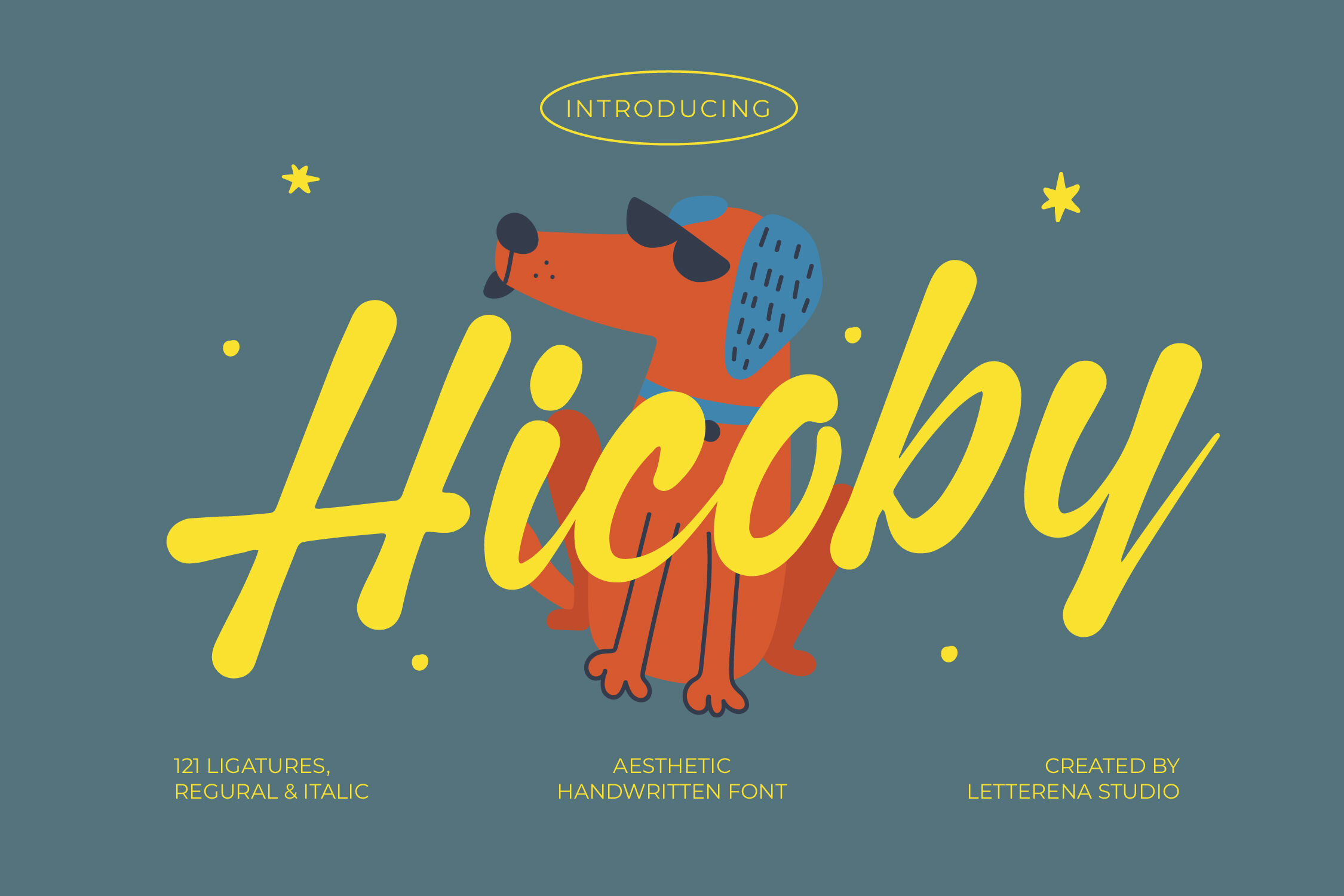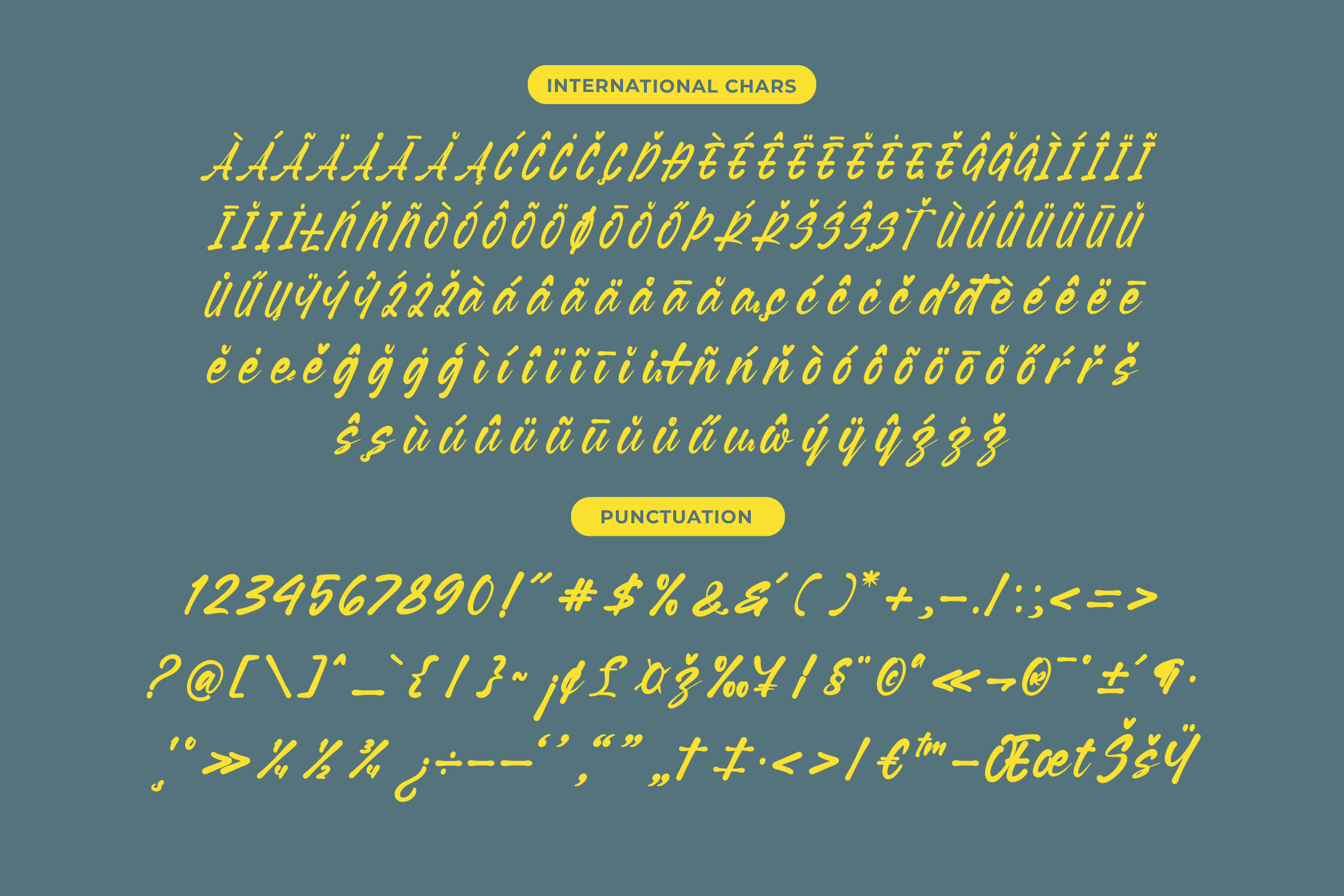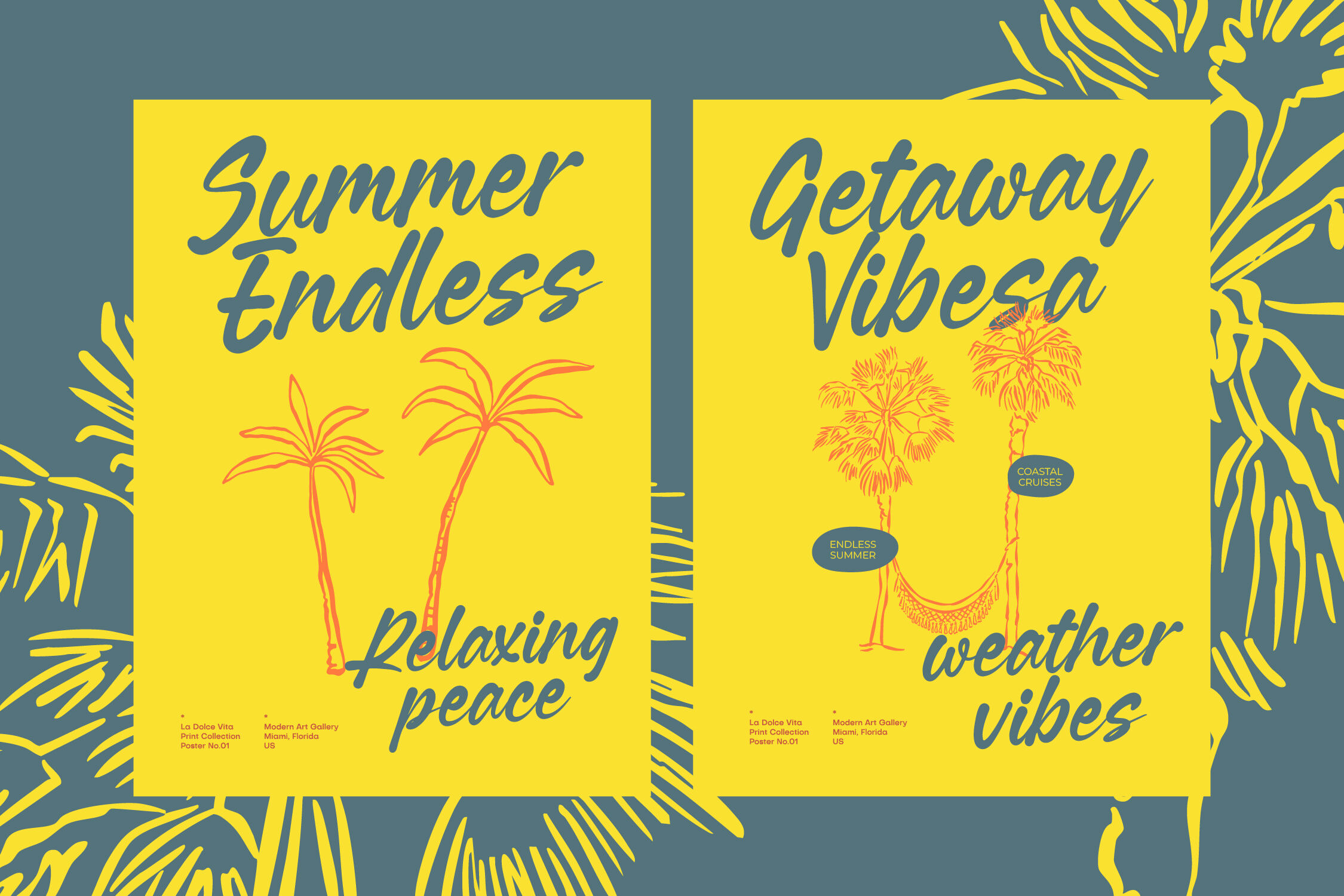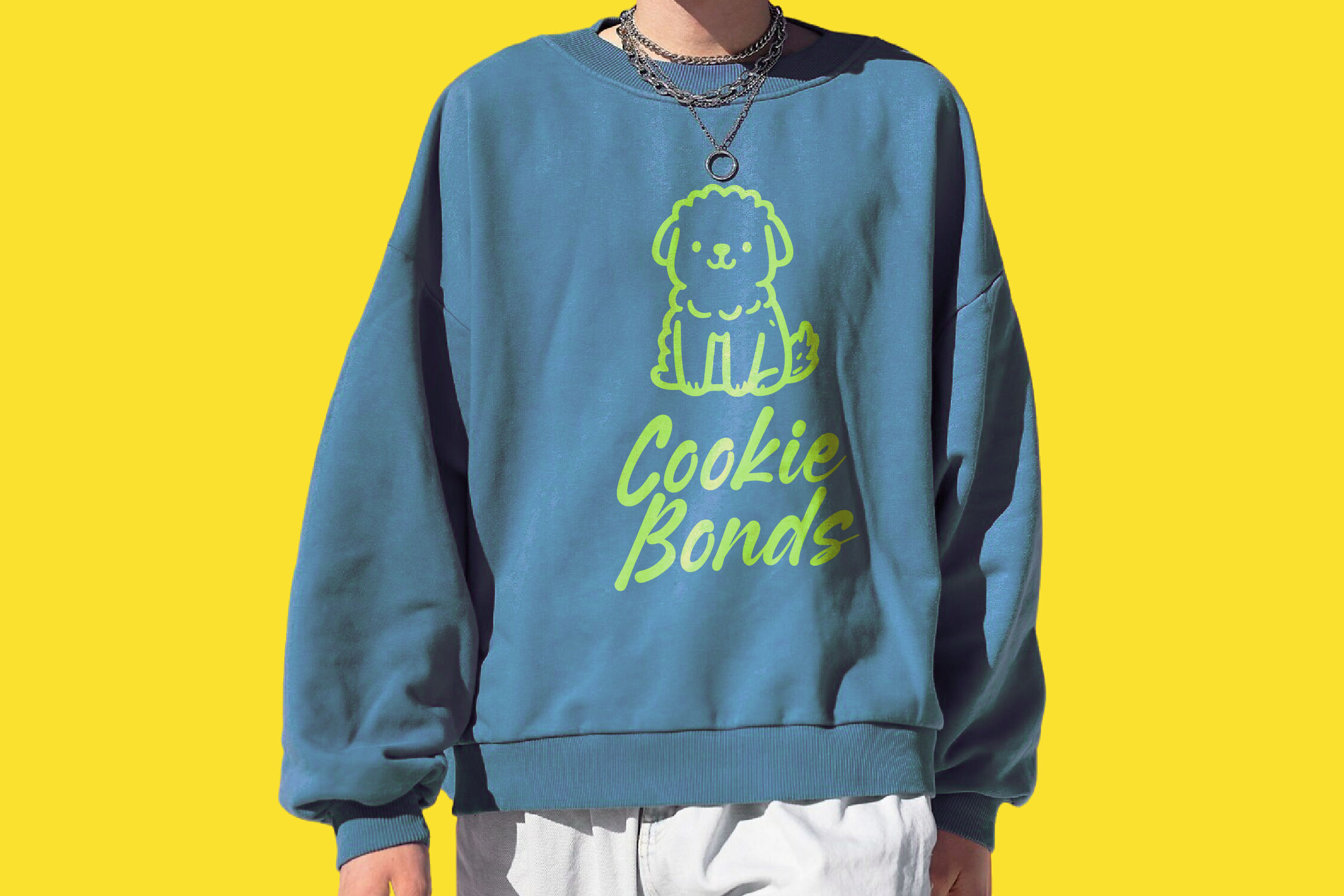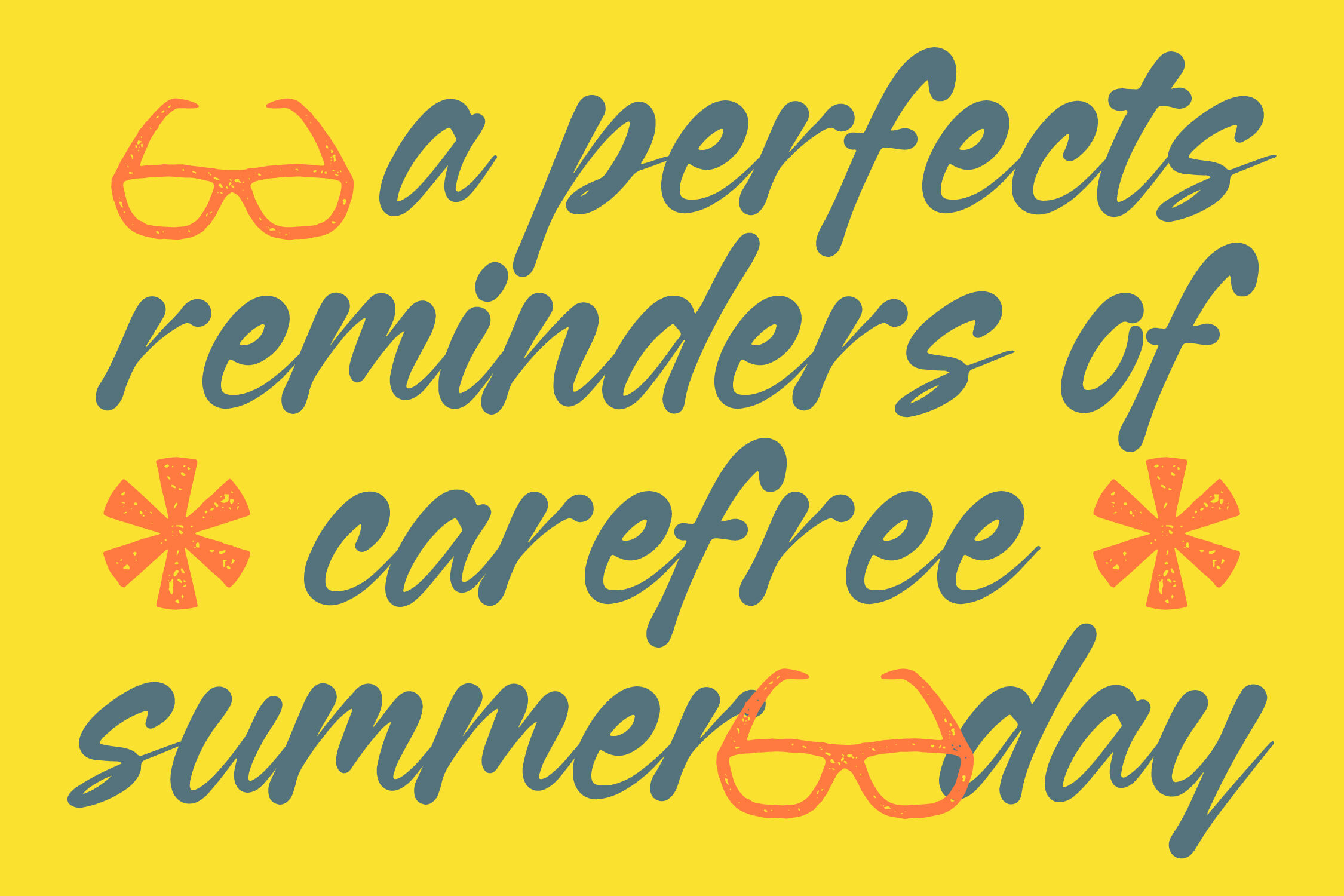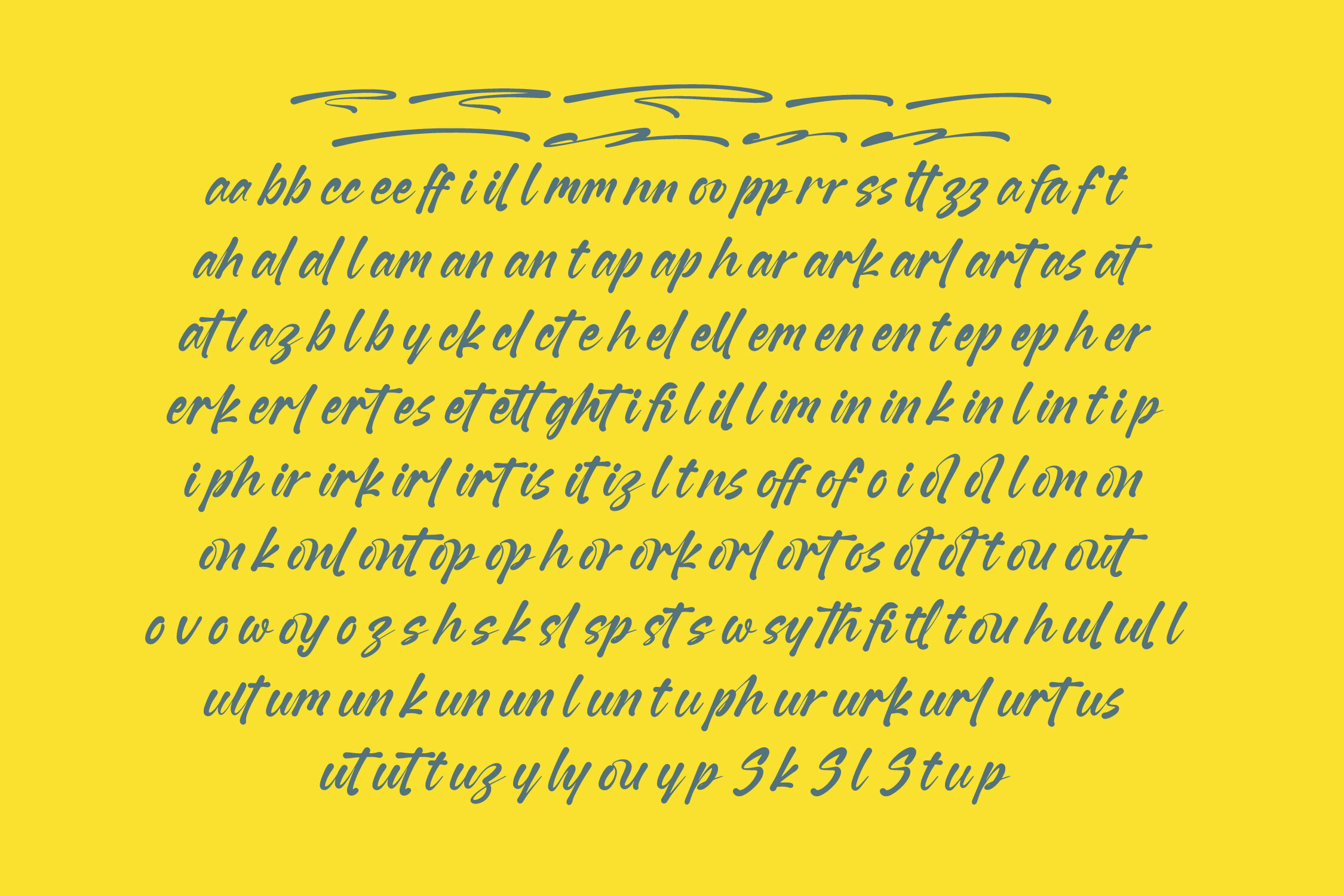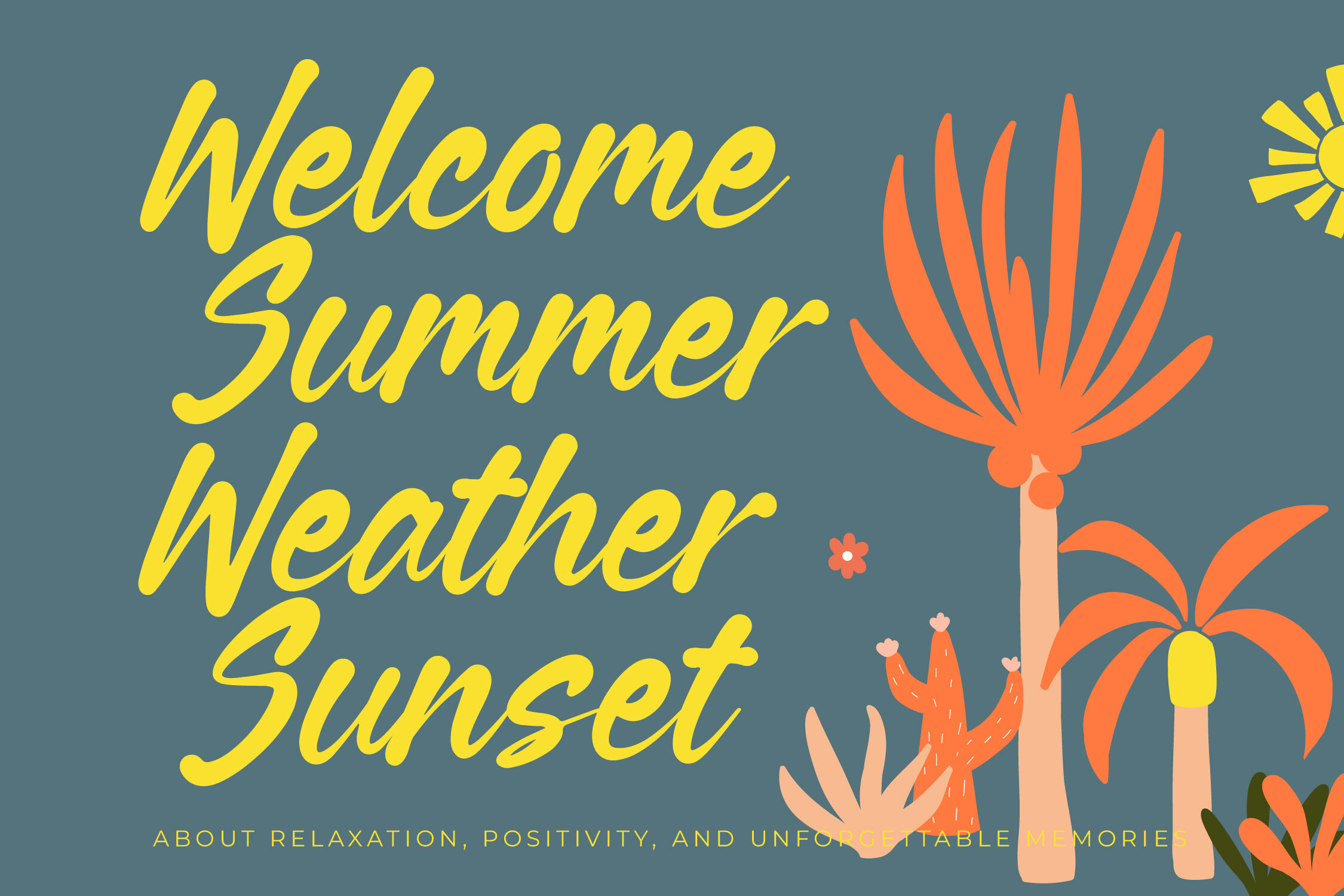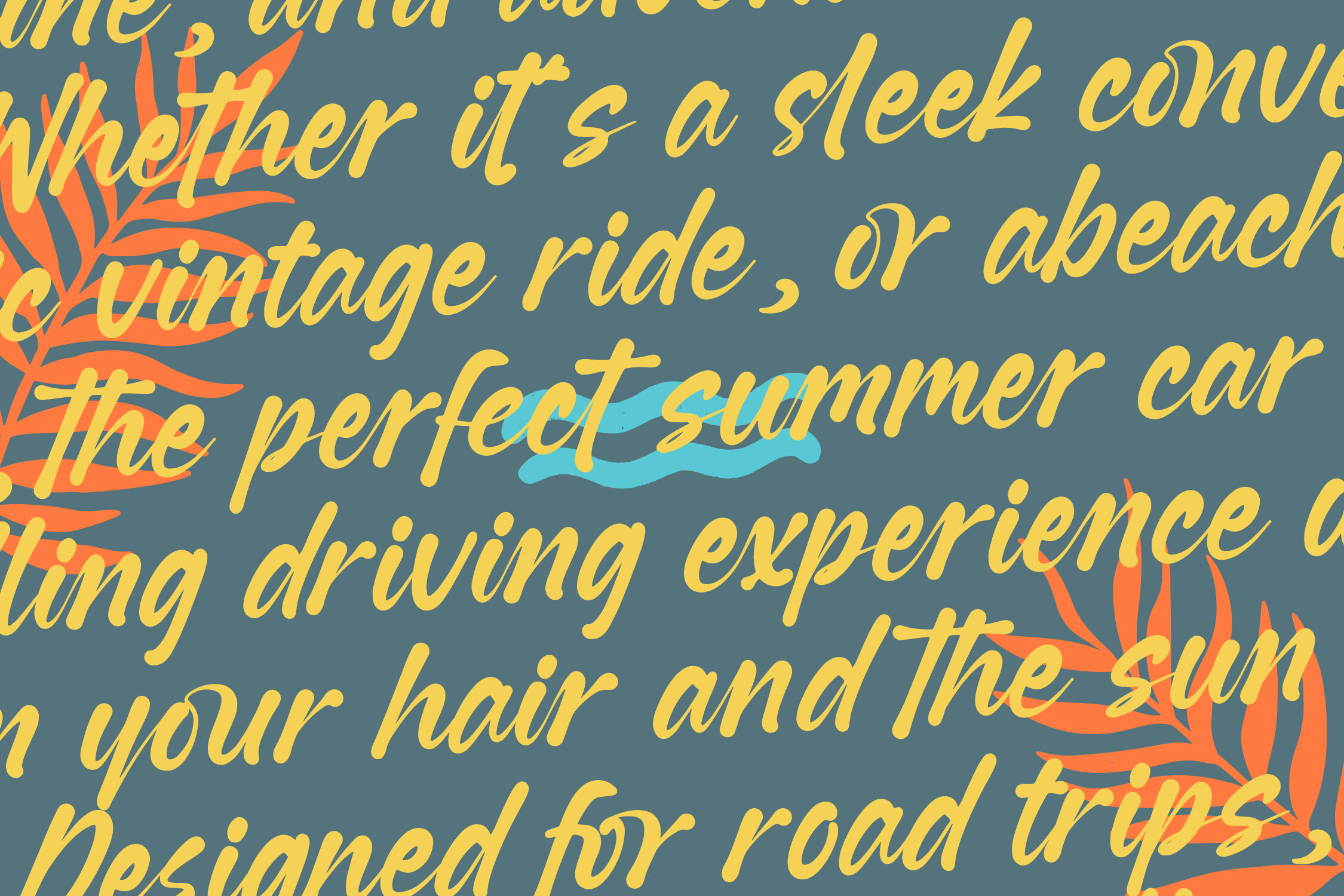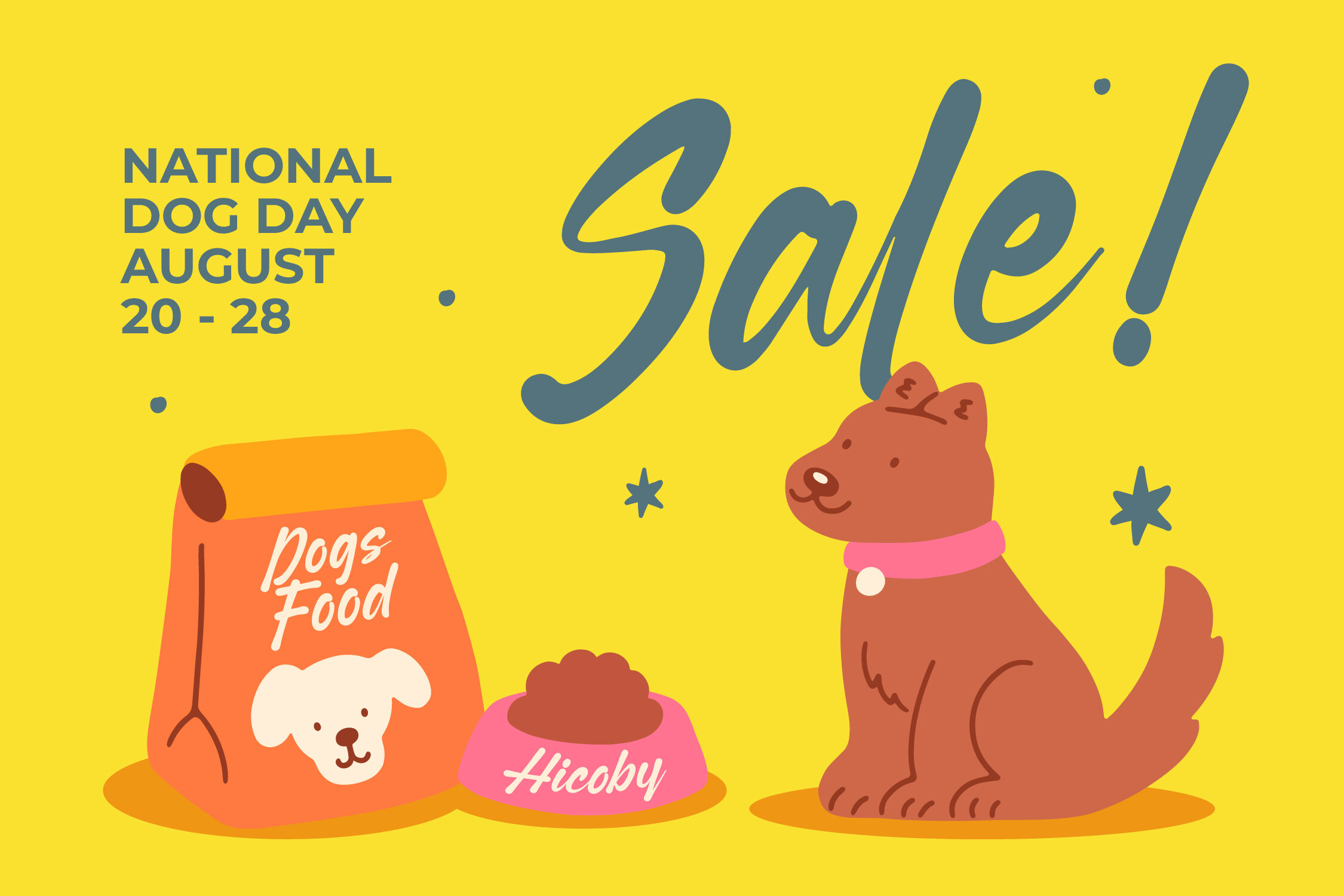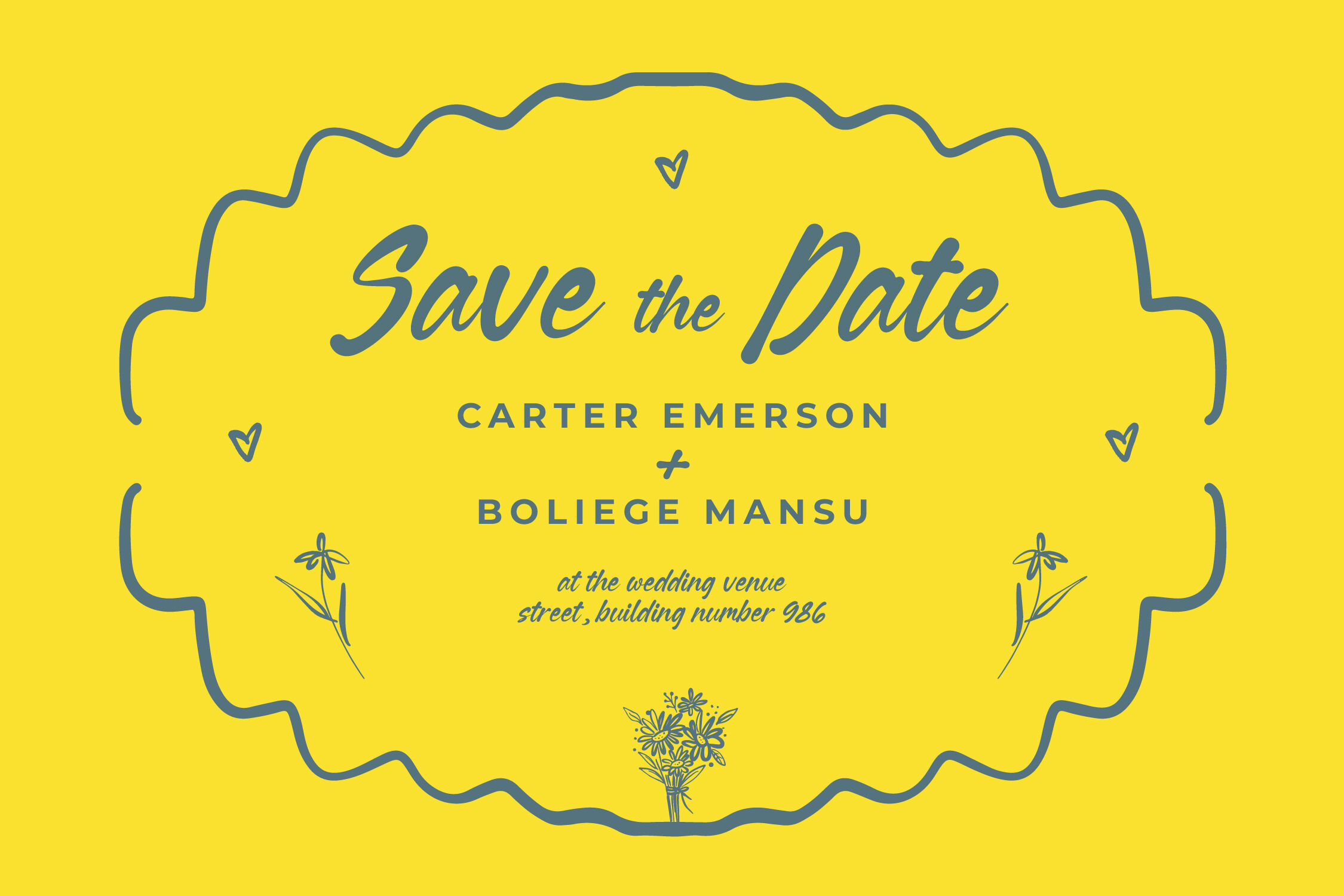
Hicoby - Aesthetic Handwritten Font
Hicoby - Aesthetic Handwritten Font with a playful and modern personality. Featuring 121 ligatures and available in both regular and italic styles, it brings a natural handwritten charm to your designs. Perfect for logos, quotes, invitations, social media posts, and branding projects, Hicoby adds warmth and creativity to any layout. Its smooth curves and casual flow make it ideal for designers seeking an authentic and stylish handwritten look.
Hicoby Italic
Hicoby
Hicoby - Aesthetic Handwritten Font